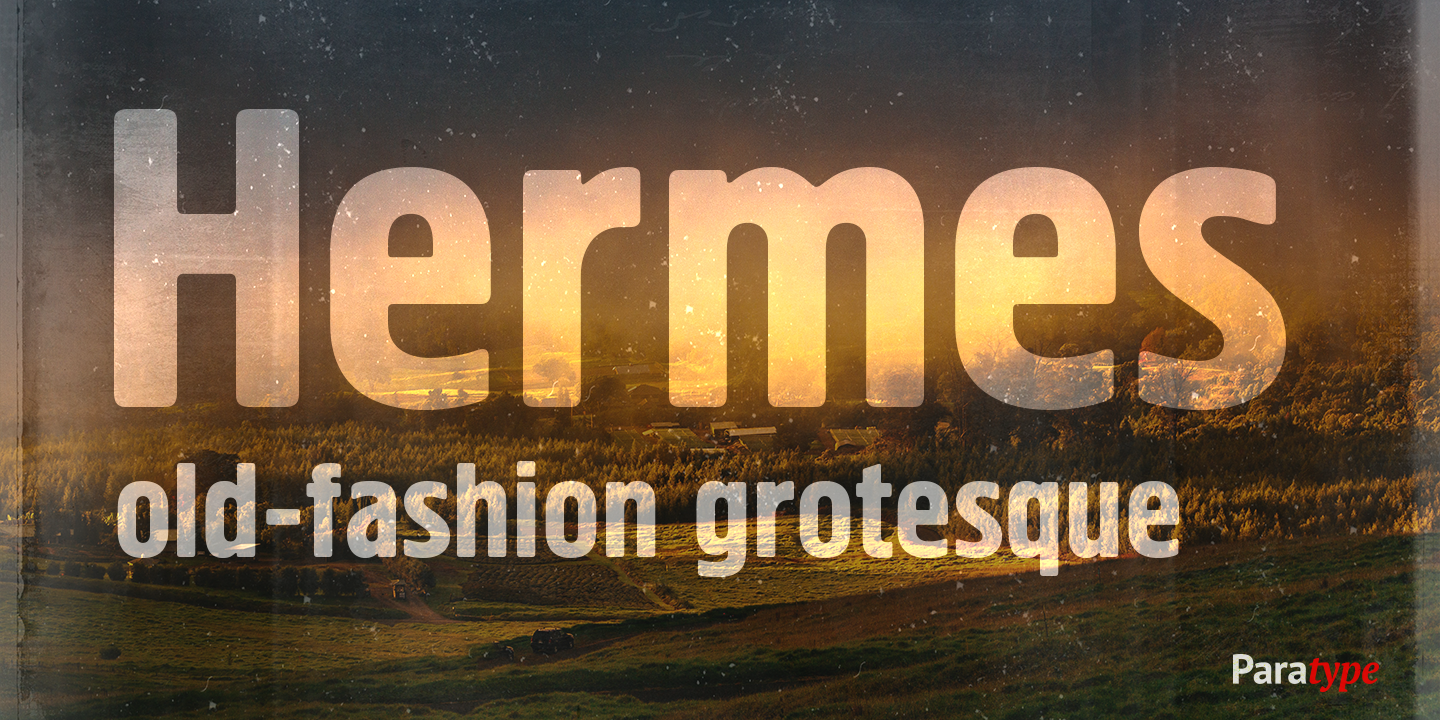
Hermes Font is perfectly designed for luxury fashion branding, premium jewelry advertisements, high-end cosmetic packaging, exclusive hotel marketing, fine dining restaurant menus, upscale real estate presentations, sophisticated corporate communications, and prestige brand campaigns requiring divine elegance.
Hermes Font creates excitement through its mythological grandeur and divine sophistication that channels the messenger god's swift elegance and timeless authority. This typeface commands attention with its perfectly balanced proportions and celestial character, bringing otherworldly refinement to brands seeking to convey premium quality and legendary status.
Hermes Font family encompasses multiple divine variations including Regular, Bold, Light, Medium, and Condensed weights. Additional classical elements, decorative capitals, and mythological symbols provide designers with extensive options for creating legendary typographic compositions that honor ancient traditions while embracing contemporary luxury standards.
The divine elegance of Hermes Font Free Download makes it indispensable for projects demanding mythological sophistication and premium brand positioning. This display typeface seamlessly combines classical Greek influences with modern luxury aesthetics, delivering exceptional visual impact while maintaining the dignity and prestige associated with legendary brands.
Luxury marketers consistently select Hermes Font for campaigns requiring divine authority and timeless appeal. Its mythological heritage makes it perfect for premium brands seeking typography that conveys heritage, exclusivity, and transcendent quality. The font's versatile nature ensures celestial performance across all luxury market applications.
Ascend to divine branding with Hermes Font and experience how this exceptional typeface brings mythological sophistication and legendary elegance to every project, creating powerful brand communications that establish divine authority and timeless prestige in today's luxury marketplace.